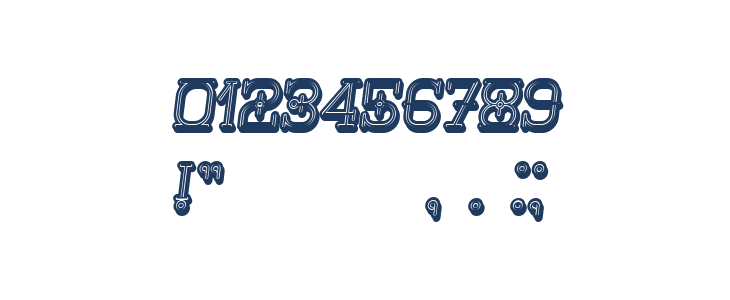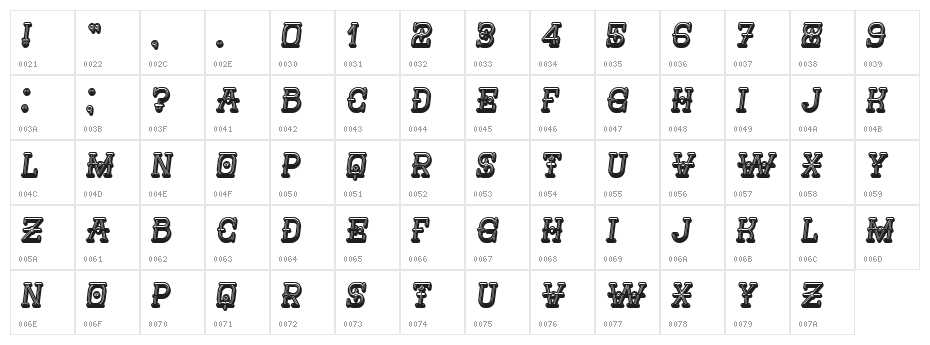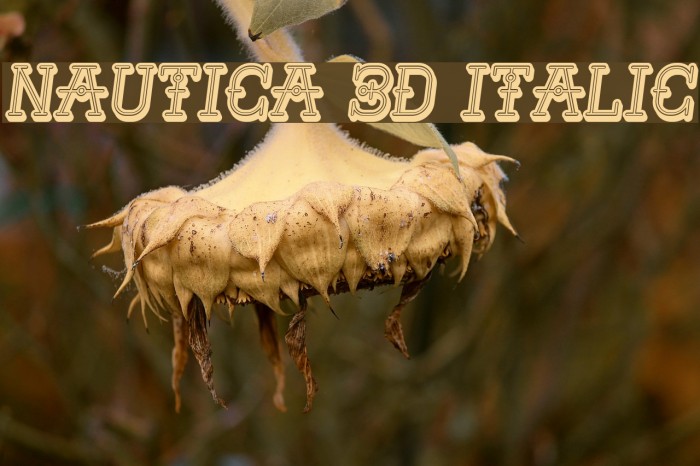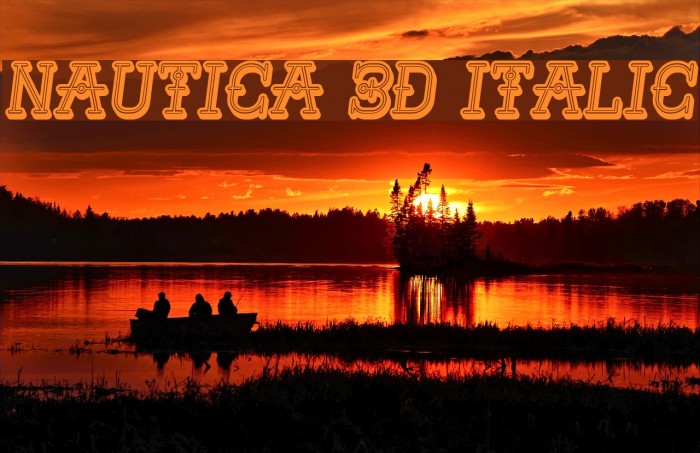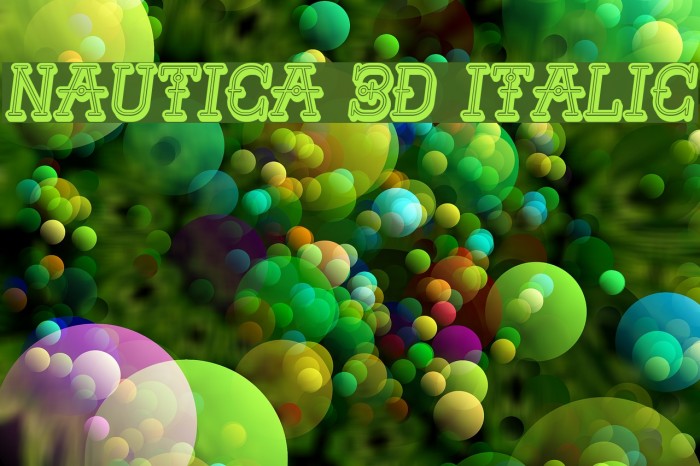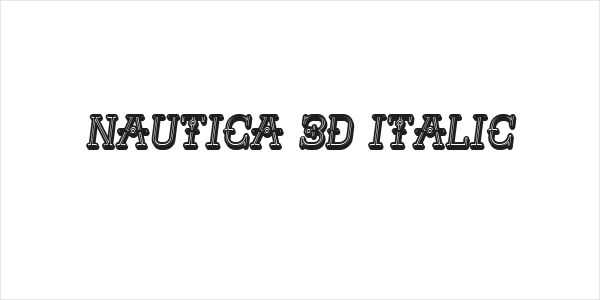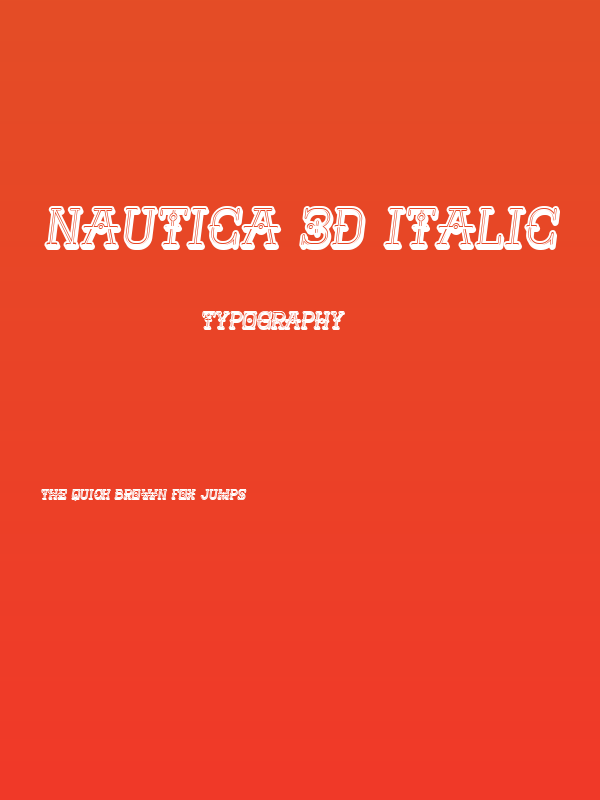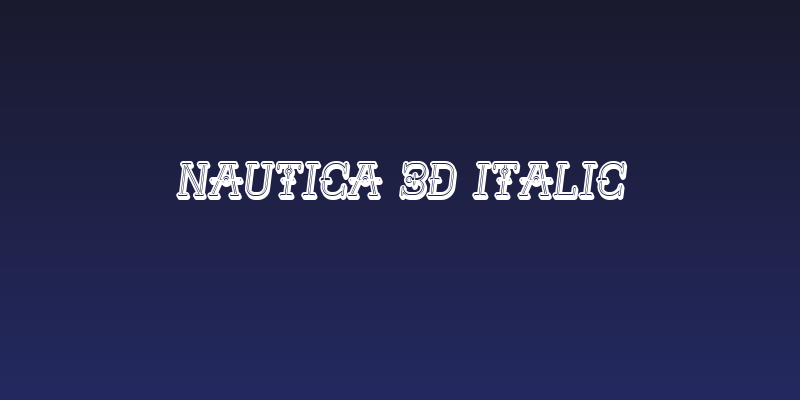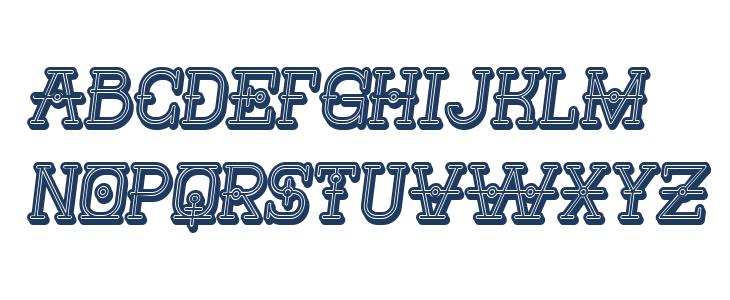
Nautica 3D Italic Font
Nautica 3D Italic Description
This font features a bold, three-dimensional appearance with a distinct italic slant, giving it a dynamic and eye-catching look. The characters are outlined with a thick, dark border that enhances the 3D effect, making each letter appear as if it is popping off the page. The interior of the letters is filled with a lighter shade, adding depth and contrast. The style is decorative and playful, suitable for projects that require a strong visual impact. The font maintains a consistent weight and width across all characters, ensuring uniformity and balance. Its unique design makes it ideal for creative and artistic applications.
| Proposed Projects | Ideal for posters, logos, headlines, and any design requiring a bold and artistic touch. |